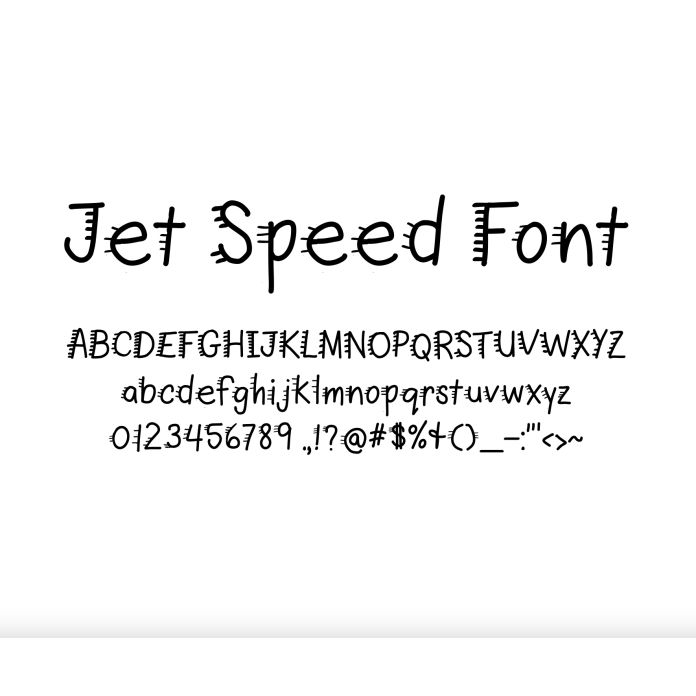
Jet Speed is a hand-drawn .otf font brimming with energy and personality. Each letter and symbol features unique jet stream dashes, adding a fun, dynamic twist to your designs. The full character set includes uppercase and lowercase letters, common punctuation, and basic math symbols. Perfect for adding a playful, distinctive touch to cards, posters, and other craft projects.